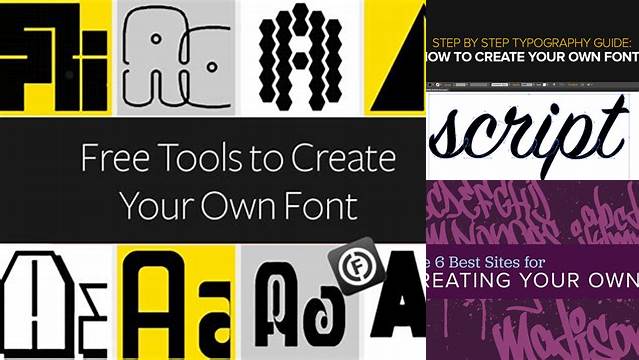
Create Custom Fonts Free: Your Online Guide
Hey everyone! Ever looked at a font and thought, “I could do better”? Or maybe you just want a font that’s uniquely you? Well, guess what? You totally can! And the best part? You can learn how to make your own font for free online! Yep, no expensive software or design degrees required. In this guide, we're diving into the amazing world of font creation, breaking down the process step-by-step so you can craft your own digital masterpieces. We'll cover everything from the initial concept to the final download, empowering you to unleash your inner typographer. Get ready to transform your handwriting, sketches, or even just your wild ideas into fonts you can use everywhere. Let's get started!
H2: Unleashing Your Inner Designer: Why Create Your Own Font?
Alright, so why bother learning how to make your own font for free online? Well, the reasons are as diverse as the fonts themselves! First off, it's incredibly satisfying. There’s something truly special about seeing your own creation come to life, transforming from a concept to something you can use in your everyday life – from your website to your social media graphics. It's a unique form of self-expression, allowing you to infuse your personality and style into every piece of text you create. Think about it: you could have a font that perfectly captures the quirky vibe of your blog or the professional edge of your business. Custom fonts are a powerful branding tool, setting you apart from the crowd and making your content instantly recognizable. Beyond personal satisfaction, creating your own font opens up exciting creative possibilities. You can design a font specifically for a particular project, experiment with different styles, and even sell your fonts online. It's a fantastic way to learn about typography, design principles, and the technical aspects of font creation. Plus, it's a great skill to have in today's digital world, where visual communication is key. No more settling for generic fonts; you can create a unique visual identity that truly represents you. And who knows? Maybe you'll discover a hidden talent and turn your font-making hobby into a source of income! The ability to create your own font also provides unparalleled control. You're no longer constrained by the limitations of pre-made fonts. You can adjust every detail, from the thickness of the strokes to the spacing between letters. This level of control allows you to create a font that perfectly aligns with your vision and communicates your message effectively. Whether you're a designer, a blogger, or simply someone who loves typography, learning how to make your own font for free online is a rewarding and empowering experience. You'll develop a new appreciation for fonts, gain valuable design skills, and unlock a world of creative possibilities. So, are you ready to embark on this exciting journey?
H2: Choosing Your Weapon: Free Online Font Creation Tools
Okay, let's talk tools! Because you're learning how to make your own font for free online, we're going to focus on the fantastic, free resources available. No need to break the bank; these platforms offer all the essentials to get you started. One of the most popular choices is FontForge. This is a powerful, open-source font editor that gives you immense control. While it has a steeper learning curve than some other options, FontForge offers a wide range of features, including support for multiple font formats and advanced design capabilities. Think of it as the professional-grade option for free font creation. Next up, we have Glyphs. While not entirely free (it offers a trial), Glyphs is an excellent option for Mac users and offers a user-friendly interface and a robust feature set. It's perfect for beginners and experienced designers alike. Another solid choice is Calligraphr. This is a web-based tool that simplifies the font creation process. You can start by printing a template, filling in the letters with your own handwriting or drawings, scanning the template, and then uploading it to Calligraphr. The platform will then generate a font based on your input. It's an excellent option for creating handwriting fonts quickly and easily. Lastly, we have FontStruct. This is a web-based tool that lets you create fonts by assembling geometric shapes. It's a great way to experiment with different design styles and create unique, pixelated fonts. Remember, the best tool for you depends on your needs and experience. Experiment with different platforms to see which one best suits your style and workflow. Don't be afraid to try out different tools and see what works best for you. The key is to find a platform that you enjoy using and that allows you to bring your creative vision to life. Now, let’s see how each of these work, and also some tips for creating the best font.
H3: Diving into FontForge: A Deep Dive
FontForge, as mentioned, is a powerhouse. For those seeking to learn how to make your own font for free online, this open-source software is a go-to, offering unparalleled control and flexibility. It's a bit like learning to drive a race car – initially, it might seem complex, but the power and precision are well worth it. You'll need to download and install it on your computer. Once you've done that, the interface might seem a bit intimidating at first. However, take it step by step. FontForge provides a vast array of tools. You can import existing font files, allowing you to study and understand how professional fonts are structured. You can also create each glyph (letter, number, symbol) individually, carefully crafting every curve, stroke, and detail. The software offers tools for drawing vector shapes, editing them, and adjusting the kerning (the space between character pairs) and hinting (instructions for how the font should render at different sizes). The learning curve involves understanding the concepts of outlines, paths, and control points. It's a good idea to start by tracing existing fonts or drawing basic shapes to familiarize yourself with the tools. FontForge supports various font formats, including TrueType, OpenType, and PostScript, so you can export your font in a format compatible with most operating systems and applications. There are numerous online tutorials, videos, and communities dedicated to FontForge. Take advantage of these resources to learn the software's features and troubleshoot any issues you might encounter. Remember, it's a process of learning and experimentation. As you become more comfortable with the tools, you'll gain the confidence to create truly unique and professional-looking fonts. Be patient with yourself, and don't be afraid to experiment. The rewards of mastering FontForge are immense.
H3: Mastering Glyphs: A User-Friendly Approach
Glyphs is an excellent option when you are learning how to make your own font for free online, particularly for those who value a more intuitive interface. Its streamlined design makes it a great choice for both beginners and experienced designers, even though a trial is the only free version available. The interface is clean and well-organized, with a focus on visual design. The software provides tools for drawing and editing vector shapes, as well as features for kerning, hinting, and other advanced typography adjustments. Even with its user-friendly interface, Glyphs still offers a comprehensive feature set that allows for the creation of professional-quality fonts. You can import existing fonts, allowing you to study the design of other fonts and learn how they are structured. It offers a variety of drawing tools, including the pen tool, which lets you create and edit vector shapes with precision. Glyphs also provides features for automatic hinting and kerning, saving you time and effort. The software supports a variety of font formats, including OpenType and TrueType. This means that you can export your font in a format compatible with most operating systems and applications. Glyphs offers excellent documentation and support, including online tutorials, videos, and a helpful community. This can be a significant asset, particularly if you're new to font design. Despite its more accessible nature, Glyphs still offers powerful features for creating professional fonts. Take advantage of the excellent documentation and support to help you navigate the software and unlock its full potential.
H3: Calligraphr: Handwriting Fonts Made Easy
If you're looking for a simple and efficient method to create handwriting fonts as part of your quest on how to make your own font for free online, Calligraphr is your solution. This web-based tool is designed specifically for transforming your handwriting into a digital font, making it an ideal option for those who want to personalize their digital content with a unique, handwritten touch. The process is straightforward: you print out a template, fill it in with your handwriting, scan the template, and upload it to Calligraphr. The platform automatically converts your handwriting into a font file. Calligraphr provides templates that include all the necessary characters, from the basic letters and numbers to punctuation marks and special characters. You can even create multiple versions of each character, giving you more control over the final look of your font. The user-friendly interface makes it easy to customize your font, including adjusting the spacing between letters and characters. Even if it’s easier to use than other font creation tools, it still provides you with the essential tools needed to make custom fonts. While Calligraphr is not designed for creating complex or highly stylized fonts, it is an excellent tool for creating handwritten fonts quickly and easily. Once you've created your font, you can download it in a variety of formats, including TrueType and OpenType, and install it on your computer. This allows you to use your custom handwriting font in any application that supports fonts, such as word processors, graphic design software, and even your website. The speed and simplicity of Calligraphr make it the perfect choice if you want a personalized font that reflects your unique handwriting style. This is another great option to consider when you’re learning how to make your own font for free online. Make sure you understand the limits of this tool before deciding to use it.
H3: FontStruct: Building Fonts with Blocks
FontStruct takes a unique approach to font creation, offering a fun and accessible way to build fonts using geometric shapes. If you're looking to learn how to make your own font for free online and are drawn to pixelated or geometric designs, this is a fantastic option. The interface is intuitive and easy to learn, making it a great choice for beginners. You create fonts by assembling pre-defined geometric shapes, such as rectangles, circles, and triangles. You can then manipulate these shapes to form individual characters. The tool provides a grid system to help you align your shapes and create consistent letterforms. FontStruct also includes advanced features, such as the ability to import and export fonts in different formats. This allows you to create fonts that can be used in various applications. This online tool also allows you to easily design and build fonts. Because of its ease of use, you can quickly start creating your font. The platform also offers a gallery where you can share and browse fonts created by other users, providing inspiration and potential collaboration opportunities. Whether you're a seasoned designer or a beginner, FontStruct offers a creative and engaging way to explore font design. The platform’s simplicity makes it perfect for those seeking a quick and easy way to create custom fonts. It's a fantastic way to experiment with different design styles, unleash your creativity, and create unique fonts that stand out from the crowd. Using FontStruct is a fun and accessible way to explore font design. This makes it a great starting point for beginners. It also fosters a sense of community through its shared gallery of user-created fonts.
H2: The Font Creation Process: From Concept to Completion
Okay, now that you have an idea about the tools, let's break down the general process of how to make your own font for free online. It might seem daunting at first, but if you break it down into manageable steps, it's totally doable. First, you need to conceptualize your font. What style do you want? Do you want a serif or sans-serif font? Is it going to be a handwriting font, or something more geometric? Sketch out your ideas on paper. This is where you get to let your creativity flow. Think about the overall feel of the font. Does it evoke a sense of playfulness, professionalism, or something else entirely? Once you have a solid concept, the next step is to digitize your sketches. You can either scan your drawings or create them directly in your chosen font creation tool. Most tools offer drawing tools that allow you to create vector shapes, which are essential for creating scalable fonts. With your sketches digitized, start creating individual glyphs. This involves drawing each letter, number, and symbol one by one. Pay attention to details such as the thickness of strokes, the spacing between letters, and the overall consistency of the design. Once you've created all the glyphs, it's time to kern your font. Kerning is the process of adjusting the spacing between pairs of letters to improve the readability of your font. Different pairs of letters may require different amounts of spacing to create a balanced and visually appealing effect. After kerning, the final step is to generate your font file and test it. Export your font in a format like TrueType or OpenType. Install the font on your computer and test it in various applications, such as word processors, graphic design software, and even your website. Check for any errors or inconsistencies, and make adjustments as needed. Now, let’s dive deeper into the most important parts of the process.
H3: Conceptualizing Your Font: Defining Style and Purpose
Before you even touch a design tool, understanding how to make your own font for free online starts with a strong concept. What's the purpose of your font? Who is your target audience? Will it be used for headlines, body text, or both? Answering these questions will guide your design choices. Start by brainstorming. Research existing fonts to get inspiration and identify what you like and dislike. Sketch out your ideas by hand. Experiment with different styles, from classic serifs to modern sans-serifs, playful script fonts, or bold display fonts. Consider the personality of your font. Do you want it to be elegant, quirky, serious, or friendly? The style of your font should reflect its purpose and the brand or message it represents. Research existing fonts to understand the different styles and characteristics. Create a mood board to collect images, colors, and other design elements that inspire you. Develop a strong understanding of typography. Understand the different elements of a font, such as serifs, ascenders, descenders, and x-height. Experiment with different letterforms and see how they look in different contexts. Remember to choose a style that aligns with your brand. A strong concept is the foundation of a successful font.
H3: Sketching and Digitizing Your Designs
Once you have a solid concept, the next step in learning how to make your own font for free online is bringing your ideas to life through sketching and digitizing. Sketching is a critical step because it allows you to quickly explore different ideas, experiment with letterforms, and refine your design before moving to the digital realm. Use a pencil and paper to create rough sketches of each letter, number, and symbol. Don't worry about perfection at this stage; focus on exploring different styles and variations. Once you have a collection of sketches, choose the designs you like best and refine them. Pay attention to the details, such as the thickness of strokes, the curves, and the spacing between letters. When you're happy with your sketches, it's time to digitize them. You can either scan your drawings or create them directly in your chosen font creation tool. Most tools offer drawing tools that allow you to create vector shapes, which are essential for creating scalable fonts. Digitizing your sketches is a crucial step because it allows you to refine your design and prepare it for creating your digital font. Choose a good-quality scanner to scan your drawings. Clean up any imperfections in your sketches. Create vector shapes by tracing your sketches in your chosen font creation tool. Use the pen tool to create smooth, accurate outlines. Now it’s time to clean up your work!
H3: Crafting Individual Glyphs: The Building Blocks of Your Font
The heart of learning how to make your own font for free online lies in crafting individual glyphs. A glyph is essentially a character – a letter, number, punctuation mark, or symbol. The process involves creating and refining each glyph individually. This attention to detail ensures that your font is well-designed and visually appealing. Start with the basic glyphs, such as the uppercase and lowercase letters, numbers, and punctuation marks. Draw each glyph carefully, paying attention to its shape, stroke weight, and overall design. Ensure that the glyphs are consistent in style and proportion. This means that the thickness of the strokes, the curves, and the spacing between letters should be consistent throughout your font. Use guides and grids to help you align your glyphs and maintain consistency. Once you have the basic glyphs, move on to the more complex ones, such as special characters, symbols, and ligatures. The process of creating your glyphs is a time-consuming but rewarding experience. Remember to pay attention to the details, and take your time. Focus on creating glyphs that are visually appealing and consistent in style. Create and refine each glyph individually, which will take time, but it is a necessary step to create a font. This will make your font unique.
H3: Kerning Your Font: Fine-Tuning Spacing and Readability
Kerning is a crucial aspect of understanding how to make your own font for free online. This essential step involves adjusting the space between specific pairs of letters to optimize readability and visual appeal. Certain letter combinations, such as 'AV' or 'Wa', can look awkward if the spacing isn't properly adjusted. Kerning ensures that the letters flow together harmoniously, creating a more balanced and pleasing appearance. Start by identifying problem pairs, such as those with diagonal strokes or overlapping shapes. Use your font creation tool's kerning features to adjust the spacing between these pairs. Experiment with different amounts of spacing until you achieve the desired effect. Kerning is both an art and a science. It requires a keen eye for detail and an understanding of typography principles. Proper kerning can make the difference between a professional-looking font and one that appears amateurish. Invest the time and effort needed to master this essential skill. Kerning is a critical step, so make sure you dedicate time to do it. Also, consider how the spacing will affect the readability of your font. Ensure the kerning is consistent. This will make your font even more professional.
H3: Testing and Refining Your Creation: Making It Production-Ready
After you've created and kerned your font, the final step in learning how to make your own font for free online is to test and refine it. This crucial phase involves rigorously testing your font in different contexts to identify any issues or inconsistencies. Start by installing your font on your computer. Use various applications, such as word processors, graphic design software, and your website, to test how the font renders in different sizes and styles. Check for any errors or inconsistencies, such as poorly kerned letter pairs, uneven spacing, or broken characters. Print out your font and examine it closely. This can help you identify any subtle flaws that might be missed on a screen. Ask others to test your font and provide feedback. Fresh eyes can often spot issues that you might have overlooked. Based on your testing, make necessary adjustments to your font. This might involve re-kerning letter pairs, adjusting the spacing between characters, or refining the shape of individual glyphs. Once you're satisfied with the results, export your font in a format such as TrueType or OpenType. These formats are widely compatible with various operating systems and applications. Remember, creating a great font is a process of iterative refinement. Take the time to test, get feedback, and make adjustments until you're happy with the final result. This will make your font even better.
H2: Beyond the Basics: Advanced Techniques and Considerations
Once you grasp the fundamentals of how to make your own font for free online, you might want to delve into some advanced techniques. These enhancements can significantly improve the quality and functionality of your font, making it even more versatile and professional-looking. Consider adding OpenType features, which provide advanced typographic capabilities. OpenType features allow you to create contextual alternates (letter variations that change based on the surrounding letters), ligatures (special characters that combine two or more letters), and other advanced effects. Explore hinting, a set of instructions that tell the font how to render at different sizes and resolutions. Proper hinting ensures that your font looks sharp and legible on all devices. Think about creating multiple weights and styles of your font. This will give users more flexibility and control when using your font. Finally, design a complete character set, including not only the basic letters, numbers, and punctuation marks, but also a range of special characters, symbols, and diacritics. Taking your font design to the next level, will create a font that not only looks good but also functions well in a variety of contexts. Let’s check out some more advanced techniques in the next section.
H3: Adding OpenType Features: Expanding Your Font's Capabilities
OpenType features are a game-changer when you're learning how to make your own font for free online. They significantly expand the capabilities of your font, enabling advanced typographic effects and greater design flexibility. OpenType features are sets of instructions embedded within the font file that tell the font how to behave in specific contexts. For example, you can create contextual alternates. These are variations of a letter that change based on the surrounding letters. Create ligatures, which are special characters that combine two or more letters. Design a variety of stylistic sets, allowing users to choose different versions of your font. Explore other advanced OpenType features, such as small caps, old-style figures, and swashes. Many font creation tools offer support for OpenType features, making it easier to add them to your font. The integration of OpenType features can elevate your font design. It provides users with enhanced typographic control and creative possibilities. OpenType features take your font beyond the basics. They create more dynamic and versatile fonts. This opens the door for endless possibilities. This allows for unique and engaging design.
H3: Mastering Hinting: Ensuring Legibility Across Devices
Hinting is a crucial step when you are learning how to make your own font for free online. It ensures that your font looks sharp and legible across all devices and resolutions. Without proper hinting, your font may appear blurry or distorted at smaller sizes. Hinting is the process of adding instructions to your font that tell the font how to render at different sizes and resolutions. These instructions guide the font's rendering engine, ensuring that the character shapes are correctly drawn on the screen. The process of hinting can be complex. But, most font creation tools offer built-in hinting features that can help you automate the process. Experiment with different hinting settings to see how they affect the appearance of your font. Testing your font on various devices and screen sizes is essential. This will help you identify any hinting issues. Proper hinting is essential for creating a professional-looking font. It ensures that your font is readable and visually appealing on all devices.
H3: Exploring Multiple Weights and Styles: Adding Versatility to Your Font
Adding multiple weights and styles is a fantastic way to add versatility when you are learning how to make your own font for free online. This expands the creative possibilities. Offering different weights and styles of your font, gives users greater control and flexibility when using your font. Consider creating different weights, such as light, regular, bold, and black. Explore the different styles, such as italic, condensed, and expanded. The process of designing multiple weights and styles can be time-consuming. Start by sketching out the different variations by hand. Then, digitize your sketches. Use your font creation tool to create the different weights and styles. The more options you offer, the more versatile your font will be. This makes your font more adaptable to different design projects and user needs. The ability to provide different options adds versatility, and makes your font a more valuable asset to users.
H3: Building a Complete Character Set: Going Beyond the Basics
While you learn how to make your own font for free online, building a complete character set is essential for a professional-looking font. This means including not only the basic letters, numbers, and punctuation marks, but also a wide range of special characters, symbols, and diacritics. A complete character set increases the usability of your font. It allows users to use your font in a variety of languages and contexts. When creating a complete character set, consider including: uppercase and lowercase letters, numbers, punctuation marks, special characters, symbols, and diacritics. The process of creating a complete character set takes time. However, the results are worth it. Having a complete character set makes your font more versatile and user-friendly. It also shows that you've paid attention to detail. Your diligence ensures the font’s readability in various applications.
H2: Sharing Your Creation: Fonts in the Wild!
Once you've mastered how to make your own font for free online, and created a font you’re proud of, it’s time to share it with the world! You have a few options here, depending on your goals. You can use your font for personal projects. Use your font on your website, in your designs, and on social media. Share your font with friends and family. Show off your work! You could also share your font for free. There are numerous websites where you can upload your font for others to download and use. This is a great way to share your creativity. Another option is to sell your font online. Platforms like Creative Market and Etsy provide opportunities to sell your fonts to designers and businesses. This is a great way to turn your passion into a side hustle. Before sharing your font, make sure you understand the licensing options. You can choose to license your font under a creative commons license. You may also choose a commercial license. Make sure you decide what’s right for your creation. Congratulations – you've finished your font! Now go share it!
H3: Licensing Your Font: Understanding Copyright and Usage Rights
Understanding font licensing is a critical step when you are learning how to make your own font for free online and before sharing your creation with others. Font licensing determines how your font can be used and distributed. It also protects your copyright and ensures that you receive proper credit for your work. There are various types of font licenses. The most common ones include: a personal use license, a commercial license, and an open-source license. A personal use license typically allows you to use the font for non-commercial projects. A commercial license allows you to use the font for commercial purposes, such as creating marketing materials or selling products. An open-source license grants users the freedom to use, modify, and distribute your font. Before sharing your font, you need to choose the license that best suits your needs. Consider the following factors when choosing a license: your goals, your target audience, and your comfort level with the different license options. Be aware of any restrictions. Licensing ensures that your intellectual property is protected. Make sure you fully understand all of the details.
H3: Free Font Platforms: Showcasing Your Work to the World
There's no better feeling than knowing that you have created a custom font. With platforms available, sharing your font can be a breeze. Many websites allow you to upload your font for others to download and use. These platforms are a great way to show off your work to the world. Some popular free font platforms include: Google Fonts, Font Squirrel, and DaFont. Uploading your font to a free platform is a straightforward process. Most platforms require you to create an account. They also require you to provide information about your font. The benefits of sharing your font on a free platform include: increased visibility, exposure to a wider audience, and the opportunity to receive feedback from users. Make sure you upload your font with a clear license and provide a description. The more information, the better! Remember, these platforms are a great way to get your font out there. However, they may not be the best option if you want to make money from your work.
H3: Selling Your Font: Turning Your Passion into Profit
If you're looking to turn your font creation hobby into a source of income after you learn how to make your own font for free online, then selling your font is a viable option. Platforms like Creative Market and Etsy provide excellent opportunities to sell your fonts to designers and businesses. Selling your font can be a great way to generate passive income. This involves creating a product once and then earning money. Start by researching the different platforms and choosing the one that best suits your needs. Then, create a portfolio of your fonts. Make sure you set a competitive price and promote your font on social media. You might even consider creating a website or blog. Selling your font can be challenging. However, the rewards can be significant. You may make money, as well as build your brand, and increase your visibility in the design community. So, why not give it a shot? If you're confident in your work, then go for it!
H3: Promoting Your Font: Marketing and Community Engagement
After you've finished creating your font, it’s time to learn how to promote it. Effective marketing and community engagement are essential to ensure your font receives the visibility it deserves. Start by creating a professional presentation of your font. Showcase its features, showcase its various styles, and highlight its potential uses. Share your font on social media. Use relevant hashtags to increase its visibility. Participate in design communities. Provide samples and give feedback on other designers’ work. Engage with your audience, respond to comments and questions, and build relationships with potential customers. By actively promoting your font and engaging with the design community, you can increase its visibility. That way, you can increase your chances of success. Remember, marketing is about building relationships, so be authentic and genuine in your interactions. The more effort you put into promoting your font, the greater your chances of success will be.
H2: Staying Inspired: Resources and Further Learning
Learning how to make your own font for free online doesn't stop with this guide! To keep your skills sharp and stay inspired, it's important to explore various resources. There are numerous online tutorials, courses, and articles that can help you improve your skills. Follow designers on social media and stay up-to-date on the latest design trends. The world of typography is ever-evolving. Staying informed is key! Consider joining design communities and attending workshops or conferences. This is a great way to connect with other designers and learn from their experiences. Here are some great resources to continue on your font creation journey.
H3: Online Tutorials and Courses: Deepening Your Knowledge
Online tutorials and courses are an excellent way to deepen your knowledge as you're learning how to make your own font for free online. These resources offer step-by-step guidance. They also help you to explore specific aspects of font creation in more detail. There are many free and paid options available. They range from beginner-friendly tutorials to advanced courses. Websites like Skillshare, Coursera, and YouTube offer a wealth of resources. Search for tutorials on specific topics, such as kerning, hinting, and OpenType features. Consider enrolling in a comprehensive course. This will provide a structured learning experience and help you develop your skills in a systematic way. Take advantage of the vast resources available online. This will help you to enhance your expertise. As a result, you’ll create even more compelling and professional-looking fonts.
H3: Following Designers and Trends: Staying Up-to-Date
Staying inspired and up-to-date on the latest design trends is essential when you are learning how to make your own font for free online. The world of typography is constantly evolving. Make sure you stay informed. Follow designers on social media platforms such as Instagram and Behance. Subscribe to design blogs and newsletters. Explore websites like Dribbble and Awwwards. These are great ways to get inspiration and stay informed about industry trends. Analyze the fonts used in different projects. Identify what you like and dislike about them. Experiment with different styles and trends. This will help you to develop your own unique style. By staying informed and keeping up with the latest trends, you can ensure that your fonts are relevant and visually appealing.
H3: Joining Design Communities: Connecting and Collaborating
Joining design communities is a fantastic way to connect and collaborate with other designers when you're learning how to make your own font for free online. This provides you with a supportive environment for learning, sharing, and networking. Engage with other designers. Seek feedback on your work. Get inspired. Join online forums and communities, such as TypeDrawers and Reddit's r/typography. Participate in design challenges and contests. These can help you to practice your skills and gain exposure. By actively participating in design communities, you can gain valuable insights, build relationships, and accelerate your creative growth. It’s a win-win!
H3: Experimenting and Practicing: Honing Your Craft
Experimentation and practice are key to honing your craft when you are learning how to make your own font for free online. The more you experiment with different styles, techniques, and tools, the better you'll become. Practice regularly. Set aside time each week to work on your font design skills. Experiment with different styles and techniques. Try creating fonts based on different themes or concepts. Analyze the work of other designers. This is a great way to learn how they approach font creation. Don't be afraid to make mistakes. Learn from them. With consistent experimentation and practice, you'll steadily improve your skills and create more compelling fonts. Take your time and enjoy the process. The most important thing is to have fun and enjoy the creative journey.
H2: Conclusion: Embrace Your Typography Journey!
So, there you have it! You’ve learned how to make your own font for free online! This is a very exciting journey, and we hope you have found this guide inspiring and informative. Now, go forth and create! Remember to be patient with yourself. Enjoy the creative process. Experiment with different styles, and never stop learning. With dedication and practice, you'll be creating fonts that are uniquely you in no time! Happy designing!